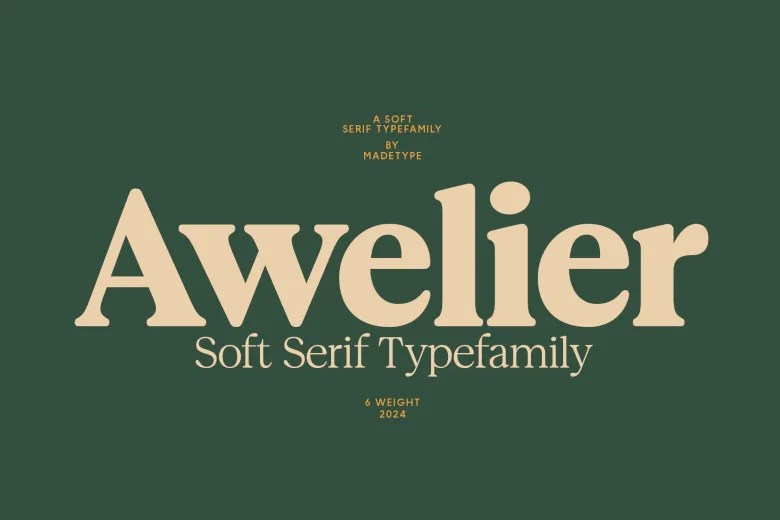
MADE Awelier Font
MADE Awelier is an elegant serif-like typeface designed to enhance any design with its refined style. The font family includes a range of weights from Awelier Light.otf to Awelier Black.otf, providing versatile options for your text needs. It features uppercase and lowercase letters, punctuation, numbers, and multilingual support, all included in six OTF files within a zip folder.
This attractive typeface is perfect for a variety of applications, including posters, magazines, logos, merchandise, presentation cards, advertising, and quotes. Its elegant design ensures that any project is brought together with a touch of sophistication.